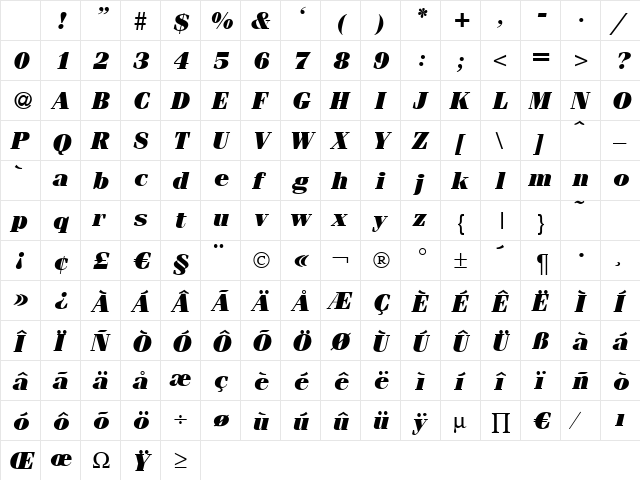
FerventUltra is a composed and adaptable typeface that performs quietly and consistently across a wide range of design contexts. The slanted form adds forward momentum and visual energy.